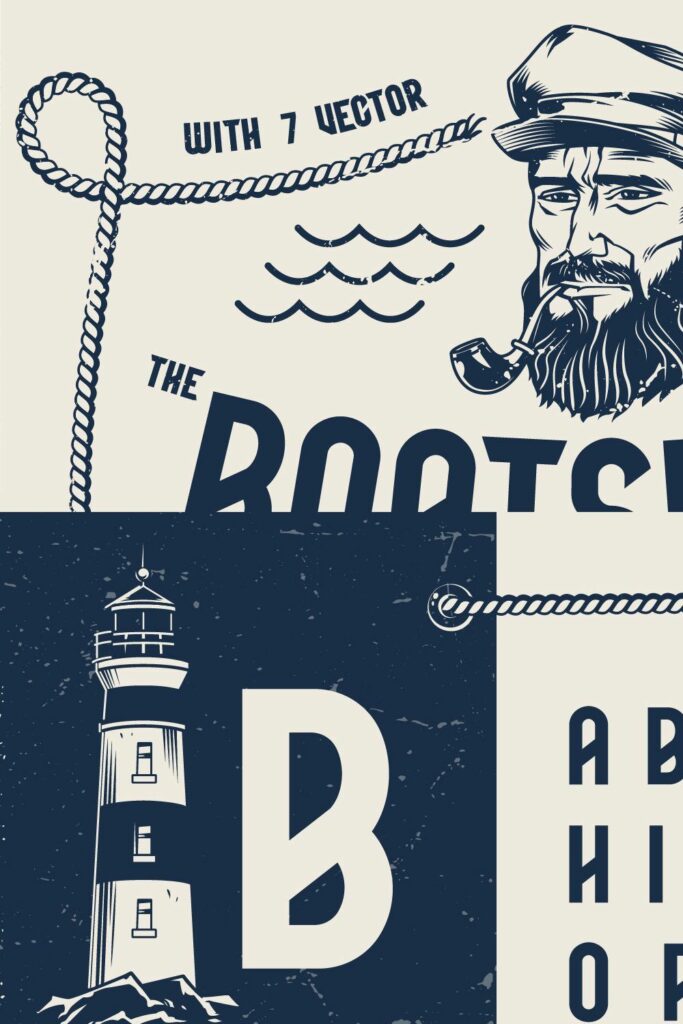
Boatswain Font Free Download . The boatswain is a sans serif font family. This font is for personal use only! Just place this font on the wall or flag of the ship and finish the design work. Boatswain bold italic version 1.002;fontself maker 3.2.2 font (font family name: Thousands of designers (famous or not) use the image font detection system to find a font or similar free fonts from an image. Our website helps you find any font from any image. Junigarden swash evokes a warm, nostalgic feeling, blending. Boatswain fonts family extras font is for those who design illustrator of the sea, pirate ships. Using a catalog of over 990k+ fonts (commercial or free) and our font finder ai, we. Bold italic), 108 characters in.
Boatswain bold italic version 1.002;fontself maker 3.2.2 font (font family name: Boatswain fonts family extras font is for those who design illustrator of the sea, pirate ships. Junigarden swash evokes a warm, nostalgic feeling, blending. The boatswain is a sans serif font family. Just place this font on the wall or flag of the ship and finish the design work. Bold italic), 108 characters in. This font is for personal use only! Thousands of designers (famous or not) use the image font detection system to find a font or similar free fonts from an image. Our website helps you find any font from any image. Using a catalog of over 990k+ fonts (commercial or free) and our font finder ai, we.
Boatswain Font Free Download Using a catalog of over 990k+ fonts (commercial or free) and our font finder ai, we. Thousands of designers (famous or not) use the image font detection system to find a font or similar free fonts from an image. Using a catalog of over 990k+ fonts (commercial or free) and our font finder ai, we. Boatswain bold italic version 1.002;fontself maker 3.2.2 font (font family name: Boatswain fonts family extras font is for those who design illustrator of the sea, pirate ships. Junigarden swash evokes a warm, nostalgic feeling, blending. Bold italic), 108 characters in. Just place this font on the wall or flag of the ship and finish the design work. This font is for personal use only! Our website helps you find any font from any image. The boatswain is a sans serif font family.
Vintage Boatswain Font Vector design Boatswain Font Free Download Just place this font on the wall or flag of the ship and finish the design work. Using a catalog of over 990k+ fonts (commercial or free) and our font finder ai, we. Our website helps you find any font from any image. Bold italic), 108 characters in. Junigarden swash evokes a warm, nostalgic feeling, blending. Boatswain fonts family extras. Boatswain Font Free Download.
Vintage Boatswain Font by DGIM studio on Dribbble Boatswain Font Free Download Our website helps you find any font from any image. Junigarden swash evokes a warm, nostalgic feeling, blending. Bold italic), 108 characters in. This font is for personal use only! The boatswain is a sans serif font family. Using a catalog of over 990k+ fonts (commercial or free) and our font finder ai, we. Boatswain bold italic version 1.002;fontself maker. Boatswain Font Free Download.
Boatswain Fonts Family + Extras Free Download OpFonts Boatswain Font Free Download Just place this font on the wall or flag of the ship and finish the design work. Boatswain bold italic version 1.002;fontself maker 3.2.2 font (font family name: Boatswain fonts family extras font is for those who design illustrator of the sea, pirate ships. Our website helps you find any font from any image. Thousands of designers (famous or not). Boatswain Font Free Download.
Boatswain Fonts Family + Extras MasterBundles Boatswain Font Free Download Boatswain fonts family extras font is for those who design illustrator of the sea, pirate ships. Thousands of designers (famous or not) use the image font detection system to find a font or similar free fonts from an image. Boatswain bold italic version 1.002;fontself maker 3.2.2 font (font family name: This font is for personal use only! Junigarden swash evokes. Boatswain Font Free Download.
Boatswain Fonts Family + Extras MasterBundles Boatswain Font Free Download Bold italic), 108 characters in. The boatswain is a sans serif font family. This font is for personal use only! Using a catalog of over 990k+ fonts (commercial or free) and our font finder ai, we. Boatswain bold italic version 1.002;fontself maker 3.2.2 font (font family name: Just place this font on the wall or flag of the ship and. Boatswain Font Free Download.
Vintage boatswain font Artofit Boatswain Font Free Download This font is for personal use only! Thousands of designers (famous or not) use the image font detection system to find a font or similar free fonts from an image. The boatswain is a sans serif font family. Bold italic), 108 characters in. Boatswain bold italic version 1.002;fontself maker 3.2.2 font (font family name: Our website helps you find any. Boatswain Font Free Download.